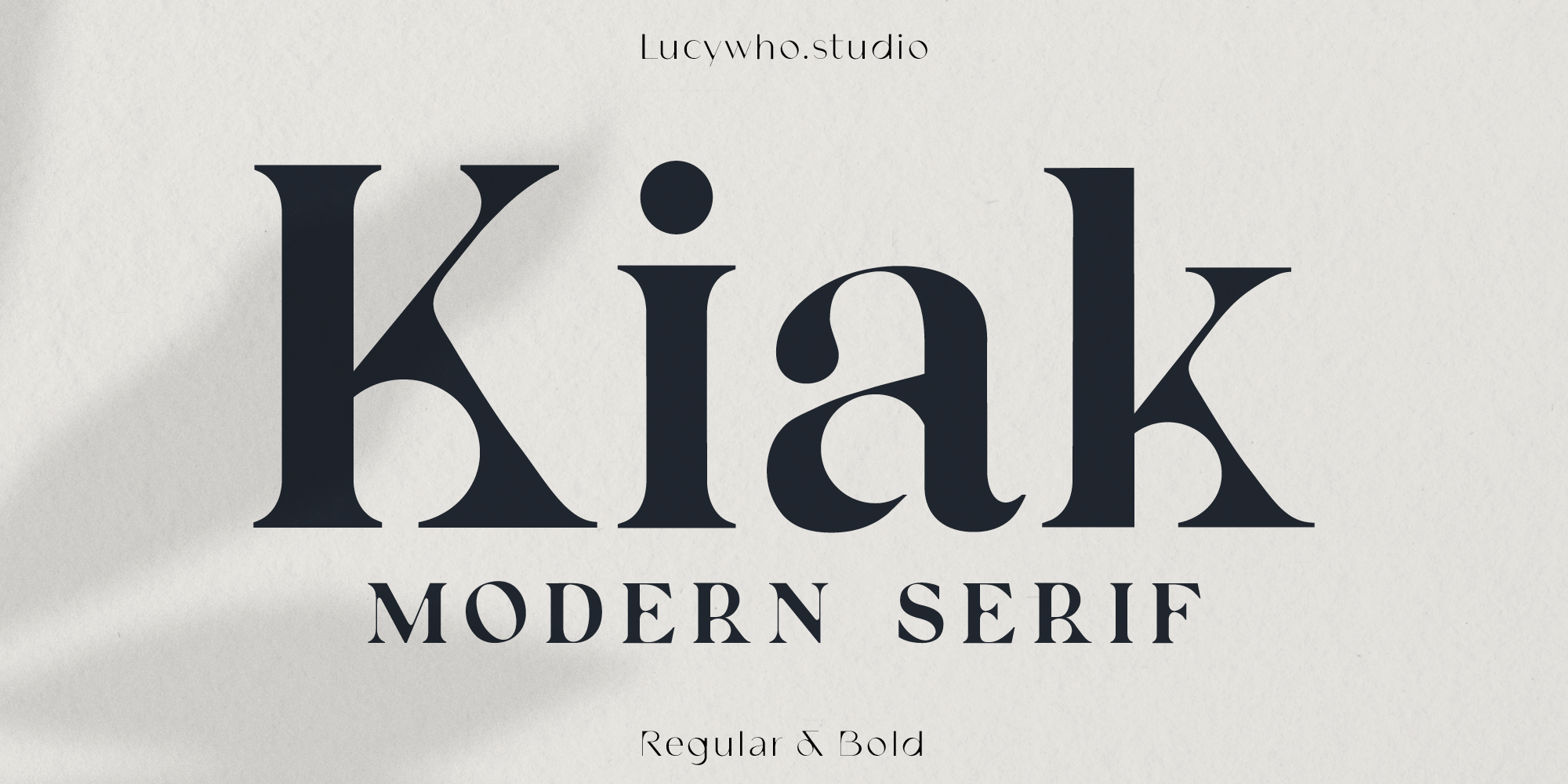
Kiak Font excels in tech startups, modern logos, digital interfaces, app designs, web headers, contemporary branding, minimalist posters, and innovative corporate communications.
Kiak Font is exciting because it embodies the future of digital typography with its sleek, forward-thinking design that perfectly captures the essence of modern technology and innovation. This font delivers cutting-edge aesthetics with exceptional functionality for digital-first design approaches.
Kiak Font family includes thin, light, regular, medium, bold weights, plus italic styles and extended unicode support, providing comprehensive solutions for multi-platform digital applications.
Step into the future of typography with Kiak Font Free Download. This innovative typeface represents the next generation of digital design, featuring streamlined letterforms that perfectly balance technological precision with human readability. Perfect for designers working in the digital space, this font delivers exceptional performance across screens and devices while maintaining distinctive visual appeal.
The precisely engineered characters showcase optimal spacing and proportions designed specifically for digital environments. Each letter demonstrates technical excellence while contributing to an overall sense of innovation and forward-thinking design philosophy that appeals to modern audiences.
Whether you're creating tech startup branding, mobile app interfaces, or digital marketing campaigns, Kiak Font provides the contemporary edge your projects need. This versatile typeface seamlessly adapts to various digital contexts while maintaining its unique technological character, making it an essential tool for designers who embrace the future of digital communication and user experience design.